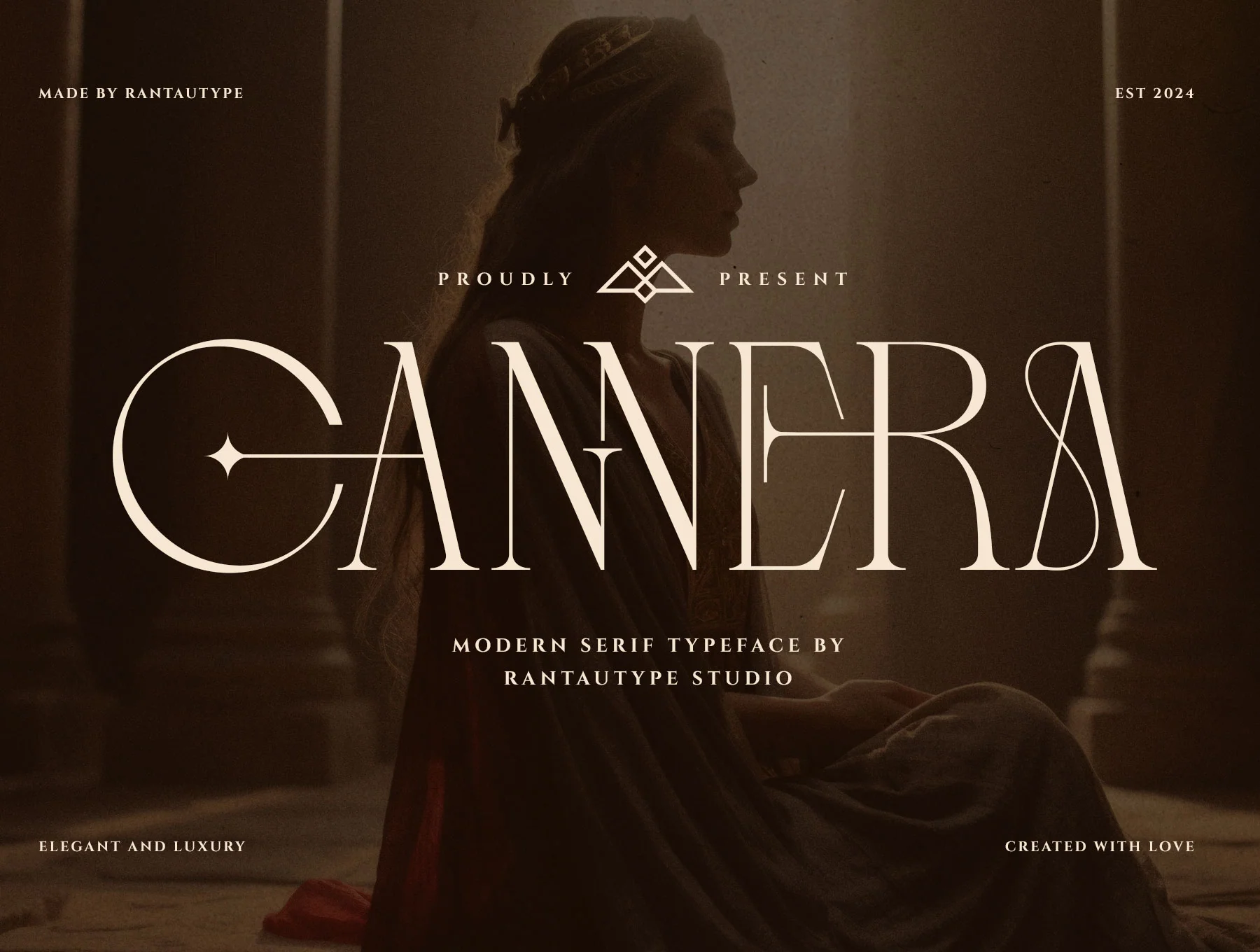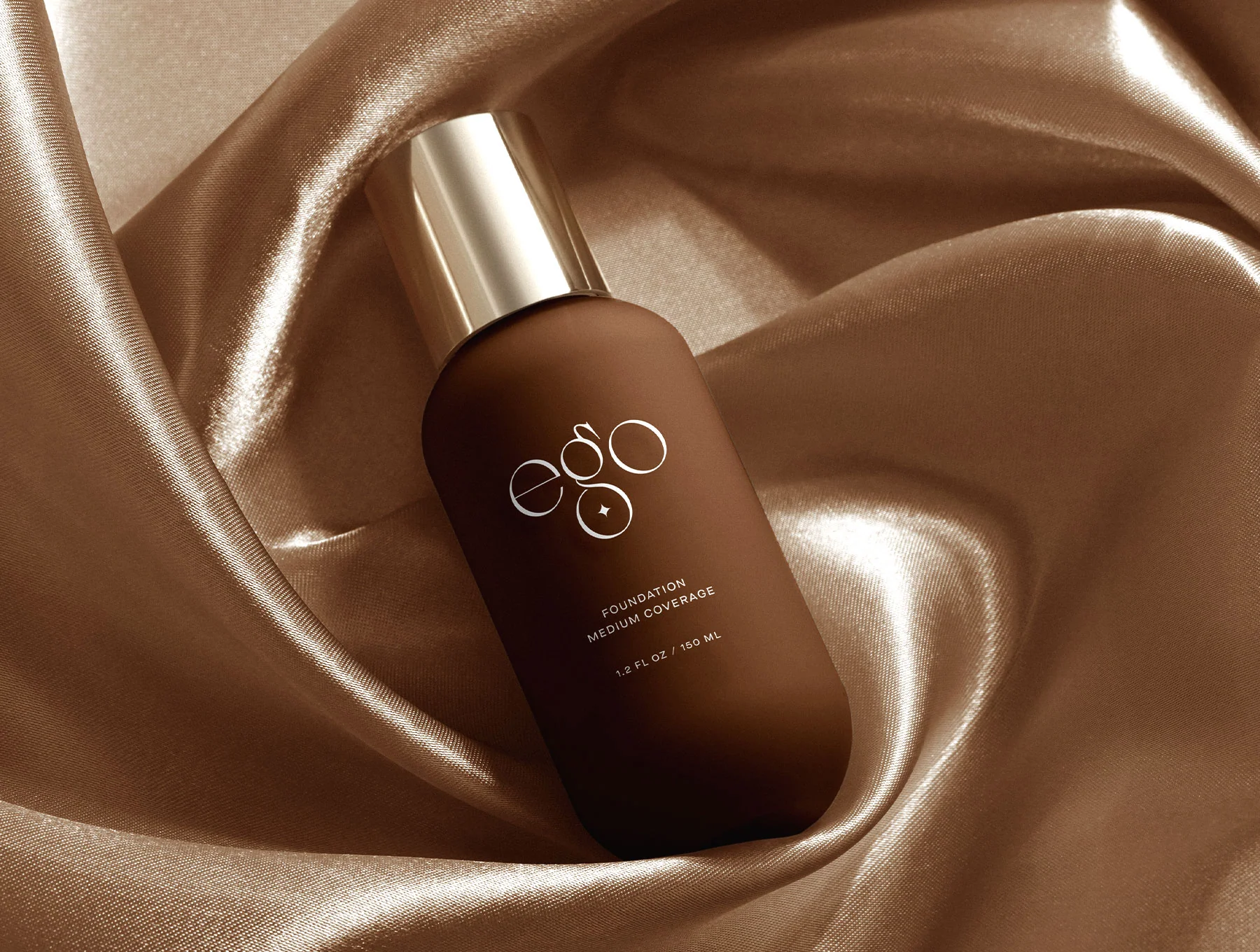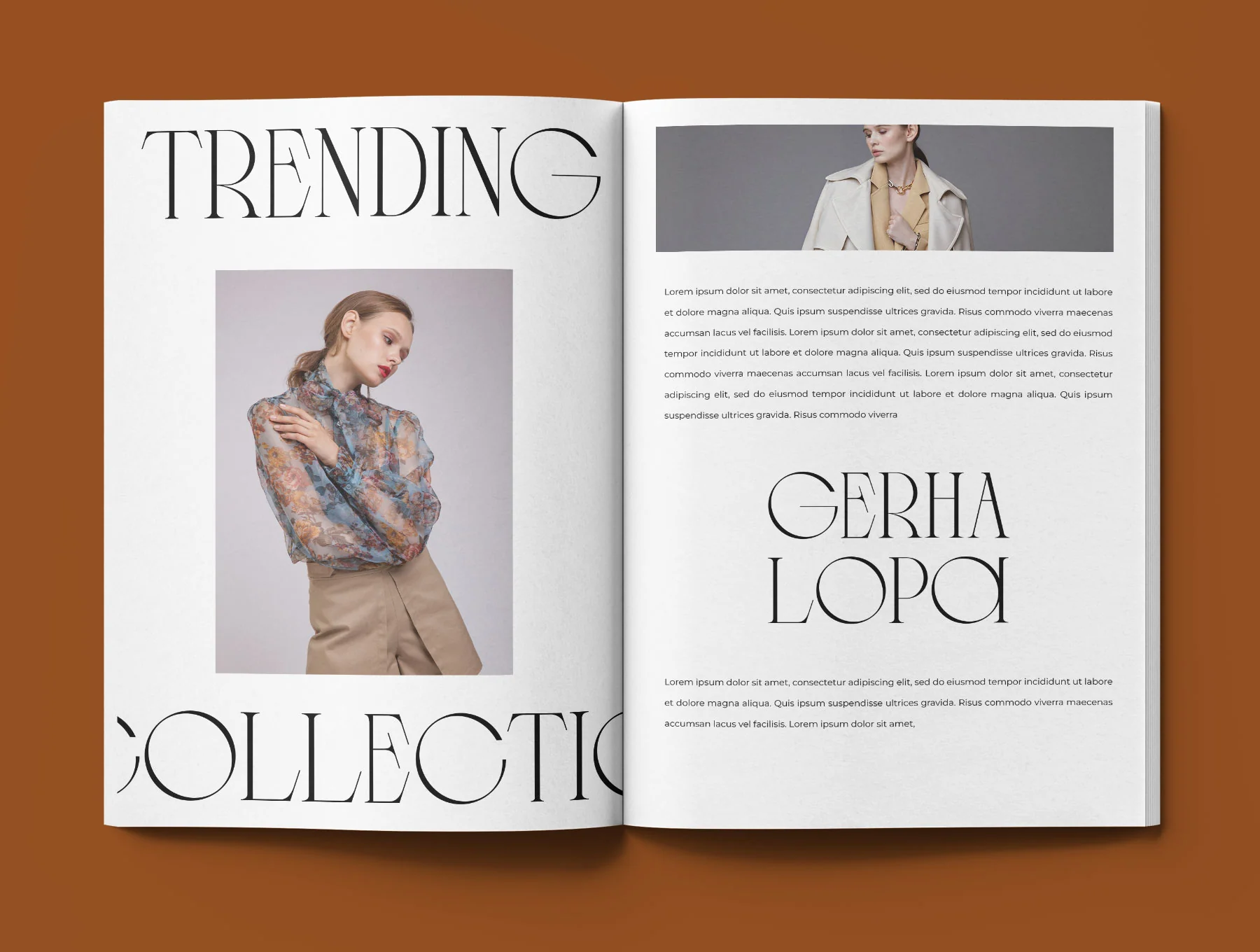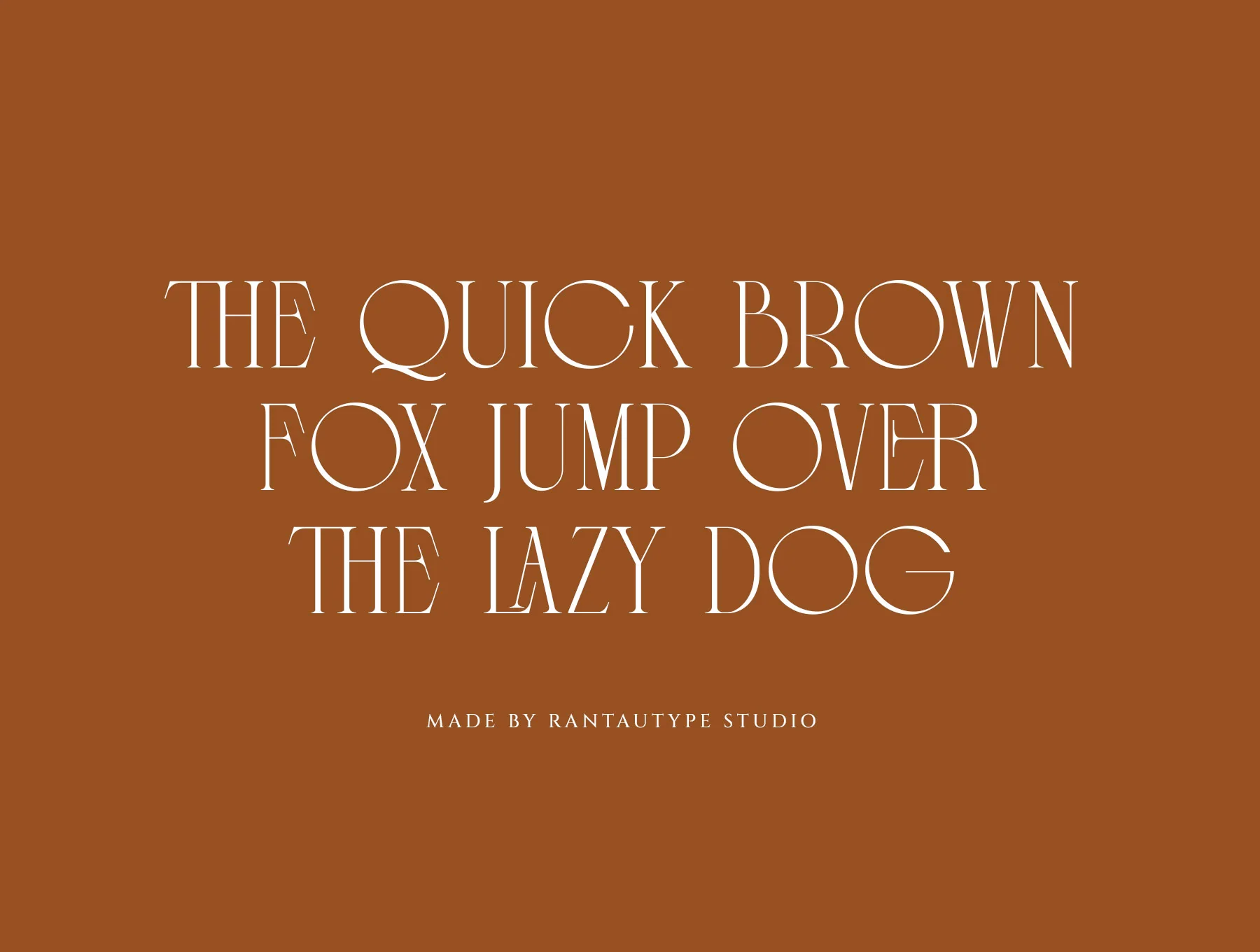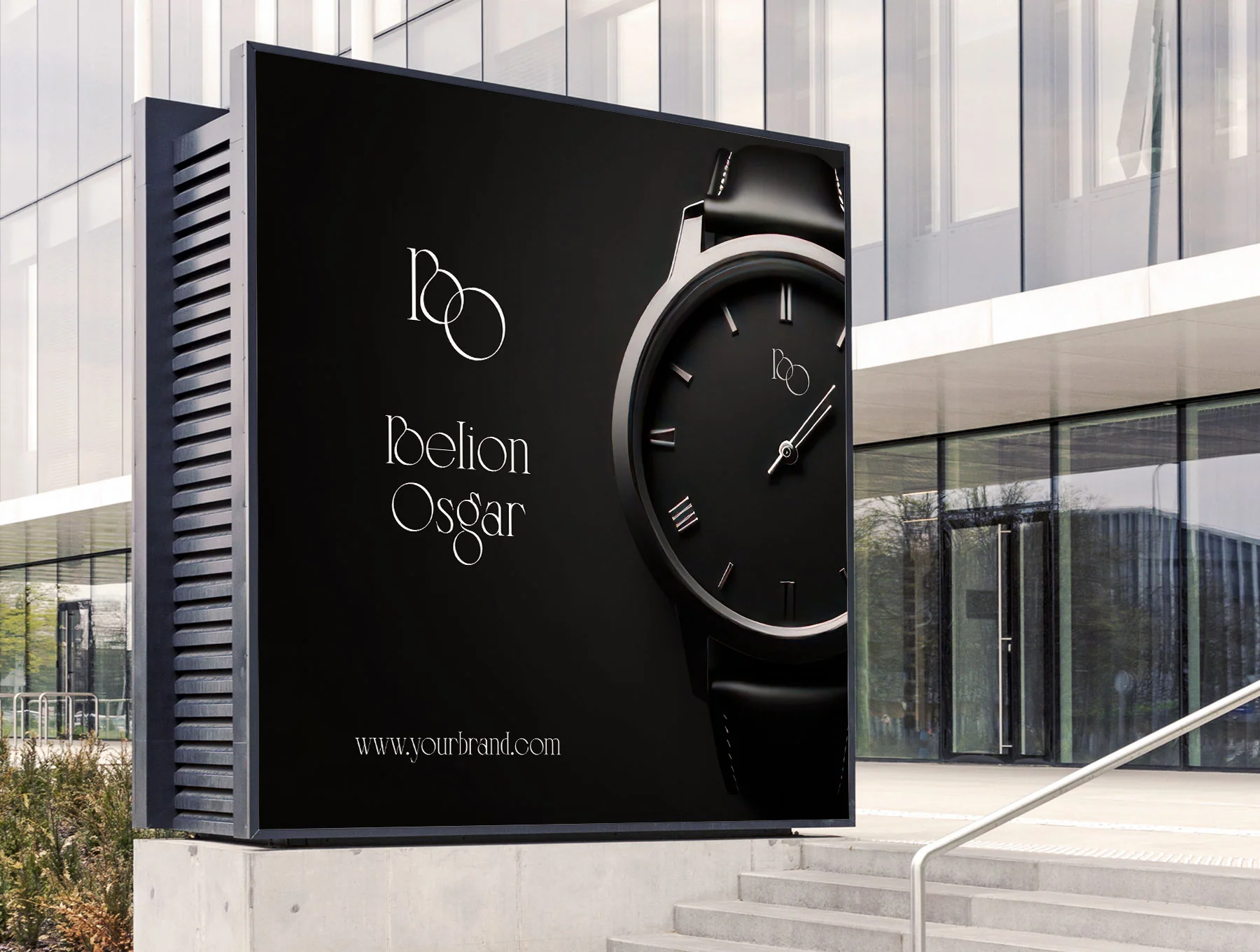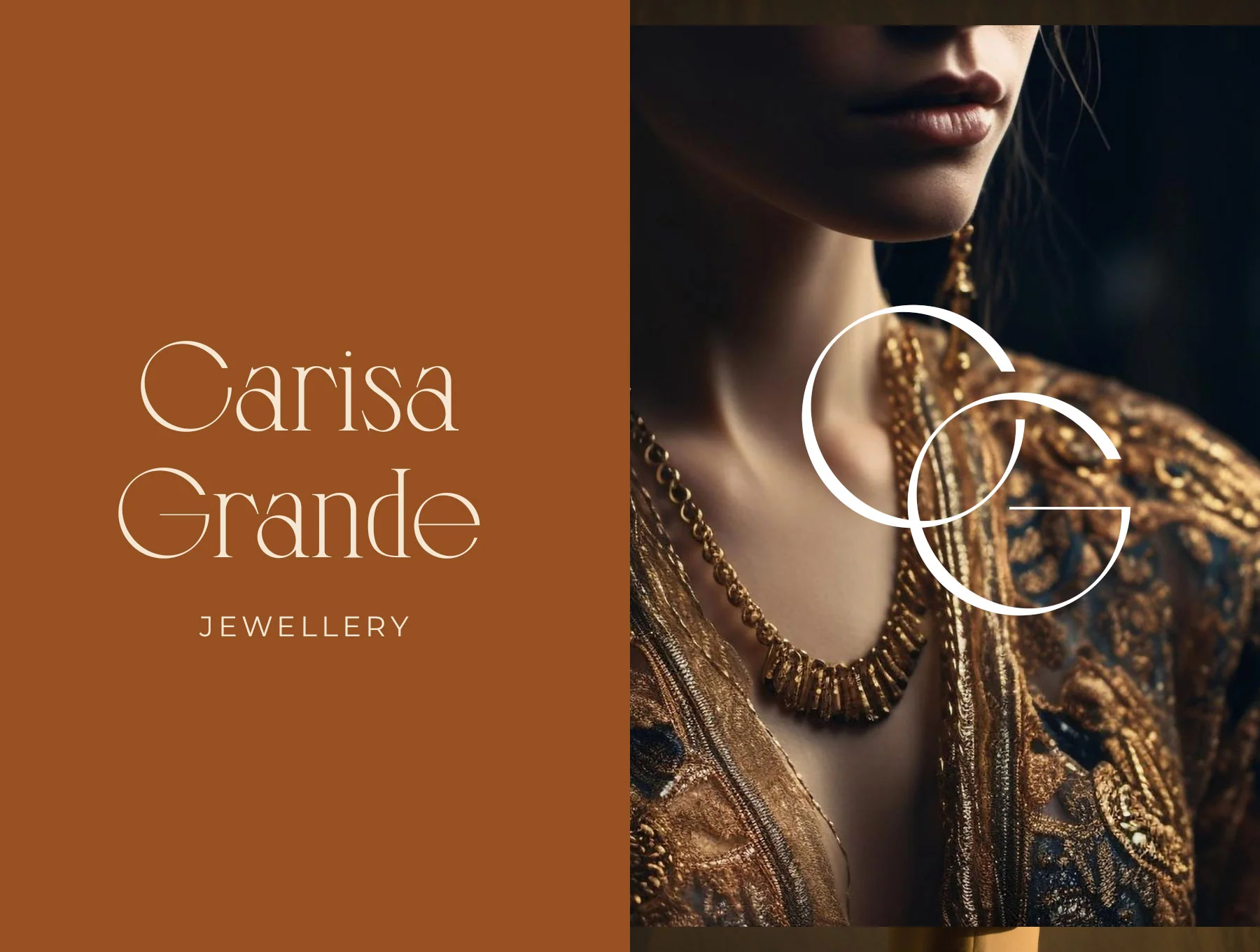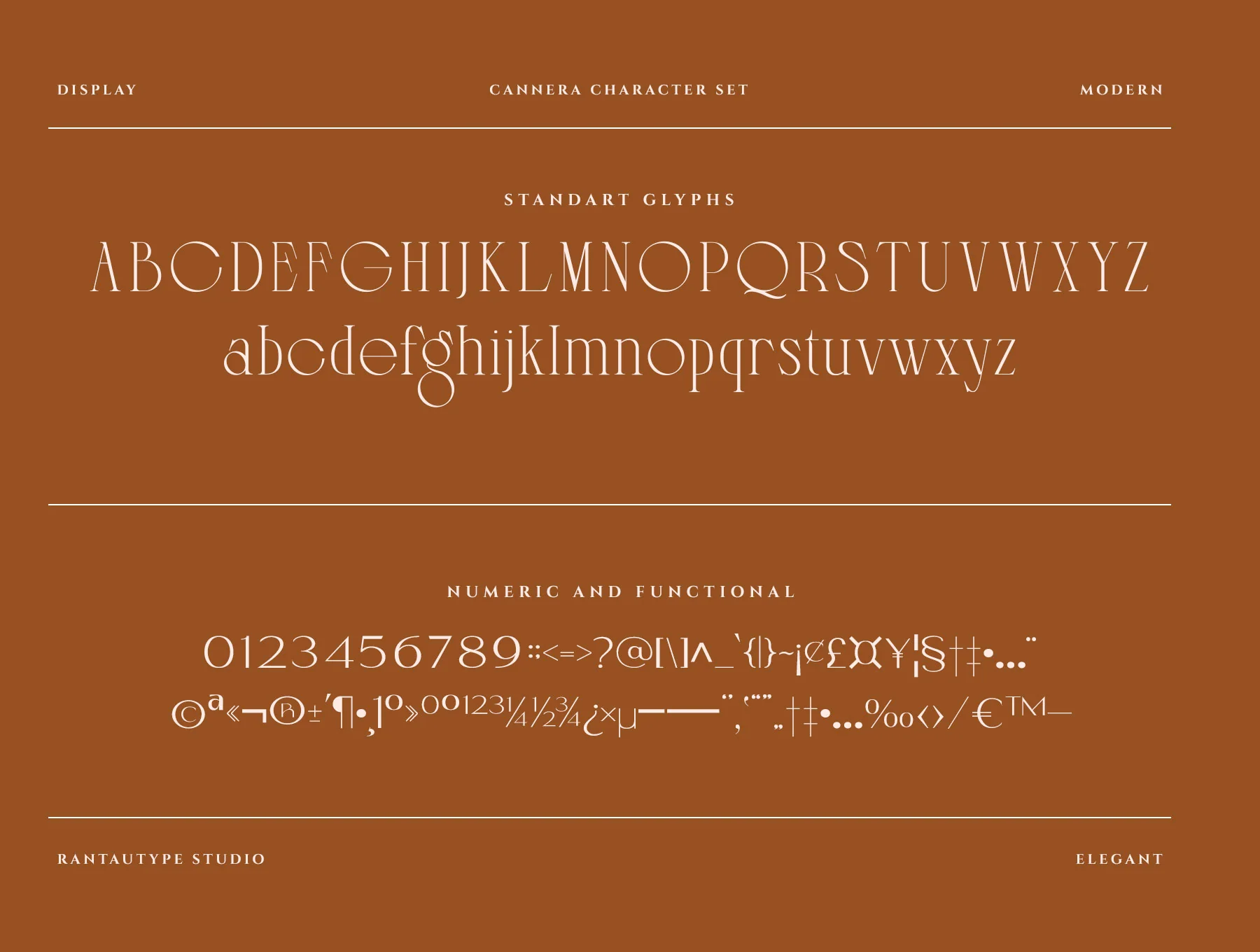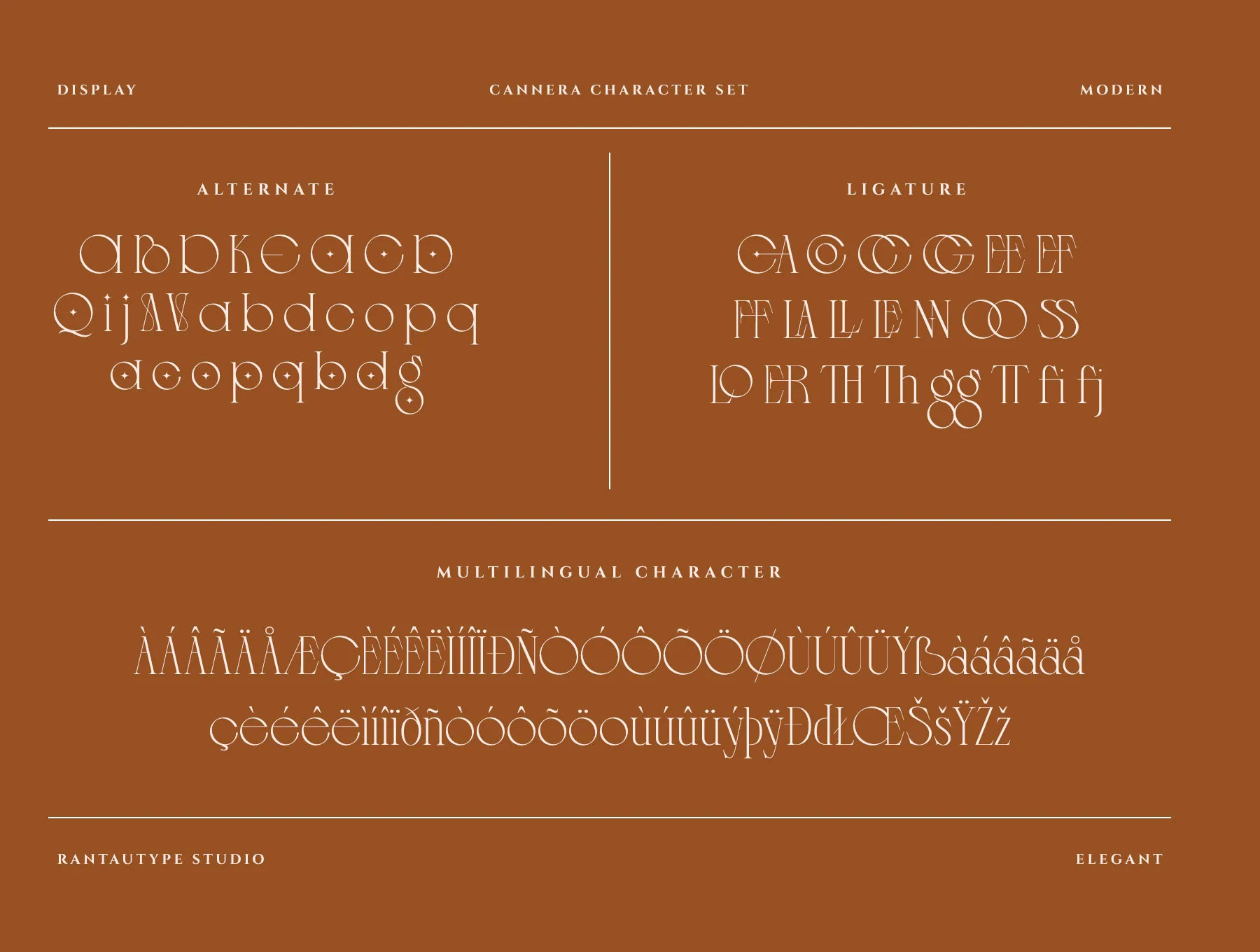
Cannera Modern Serif Font
Cannera Contemporary Serif Typeface
Standard character glyphs
Numerals with functional symbols
Alternate characters and ligatures
Cannera is a contemporary serif with graceful ligatures for upscale branding and stylish visuals. Use it for logos, ads, watermarks, stationery, magazines, invitations, labels, packaging, corporate identity and other refined designs. Includes OTF/TTF/WOFF, basic glyphs, numbers, alternates and ligatures. Installs on Mac/PC; works in Adobe software and Word, with wide multilingual support.